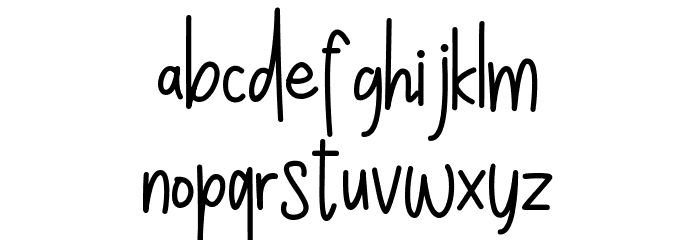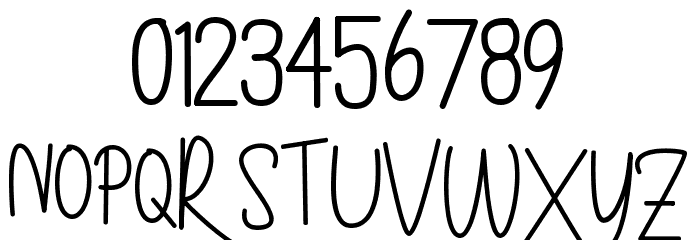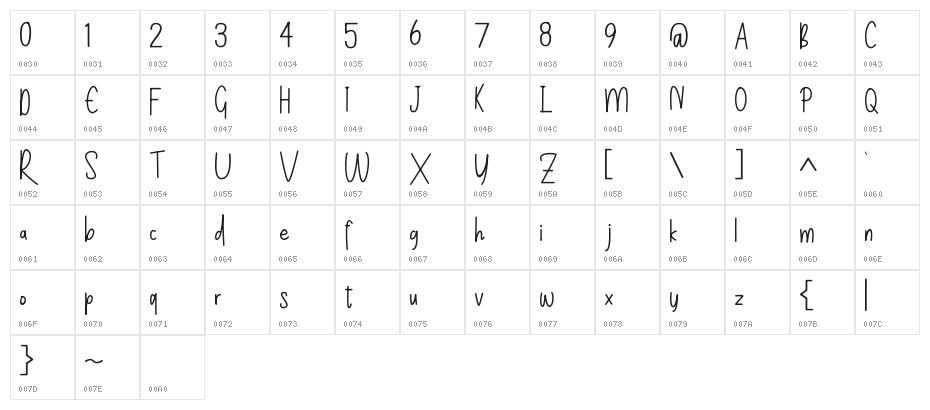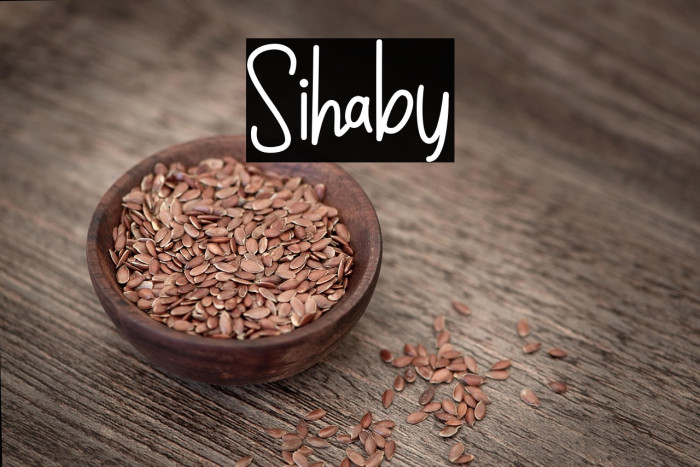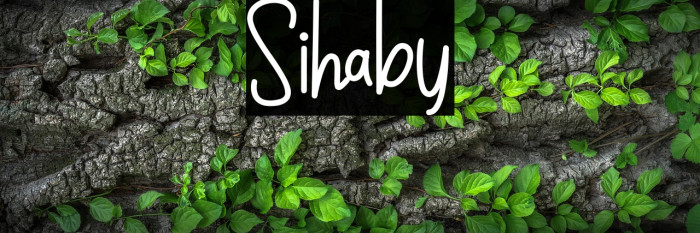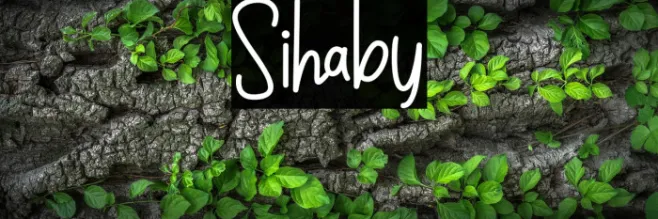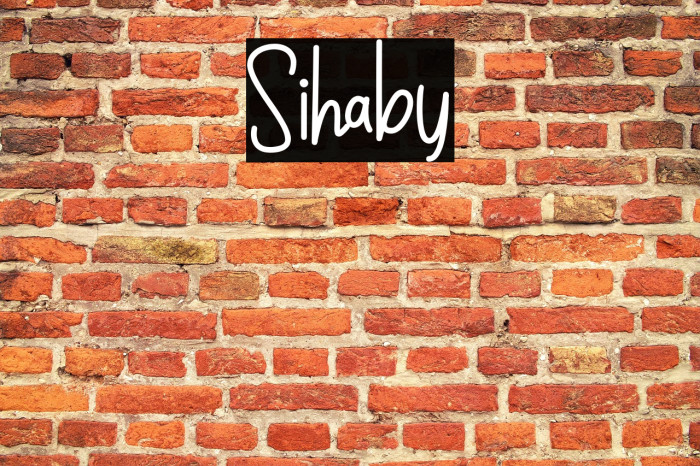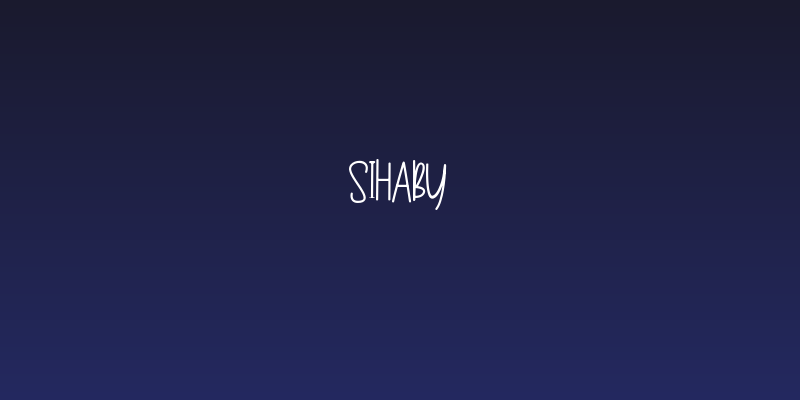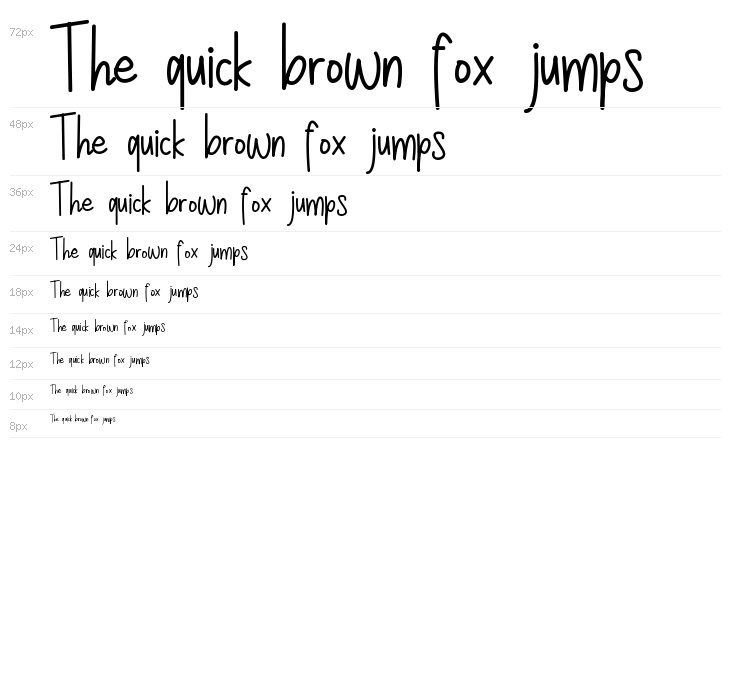
Sihaby Font
This font features a playful and casual handwritten style, characterized by its tall, narrow letters and slightly irregular strokes. The uppercase and lowercase letters maintain a consistent flow, with rounded edges and a slight slant that adds to its informal charm. The numbers are equally whimsical, matching the overall aesthetic with their smooth curves and consistent height. Special characters are designed to blend seamlessly with the alphabet, maintaining the same playful and approachable feel. This font is perfect for projects that require a personal touch, conveying warmth and friendliness.
A playful, casual handwritten font with tall, narrow letters and a whimsical style.
- Proposed Projects: Ideal for greeting cards, children's books, playful branding, and social media graphics.
- Overall Style: Casual
- Use Case: Logos, Headlines, Informal Text